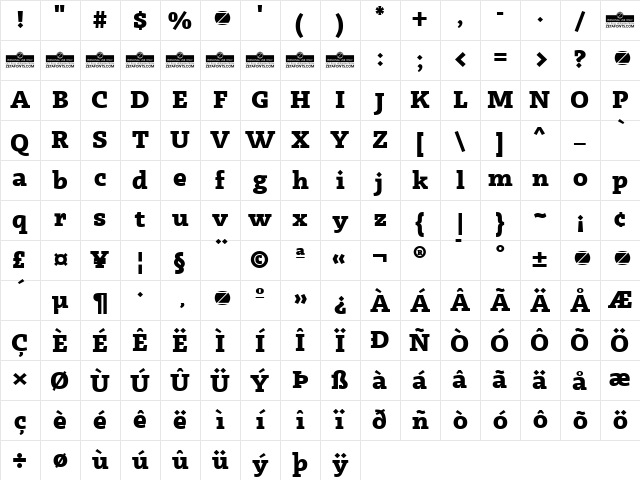
Radcliffe Display ExtraBold
Foundry: Studio Kmzero
Designer: Cosimo Lorenzo Pancini
Design Context for Radcliffe Display
Radcliffe Display is built around its visual character rather than neutral utility - its distinctive forms are designed to make an impression at display sizes. Its bold stroke weight gives it real presence on the page.
Font Pairing: Pair with a clean neutral sans-serif for body copy to let Radcliffe Display's character lead without overwhelming the composition.
Pro Tip: Use Radcliffe Display exclusively at display sizes - it was designed to be seen, not read at length. Let a neutral companion handle body copy.